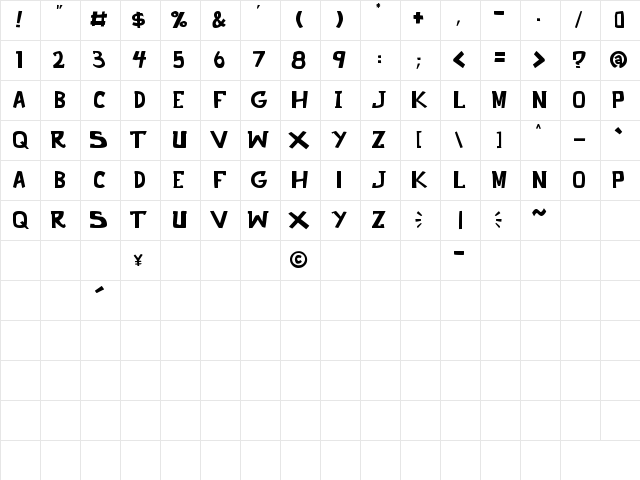
Design Context for punch it PGS
punch it PGS is a composed and adaptable typeface that performs quietly and consistently across a wide range of design contexts.